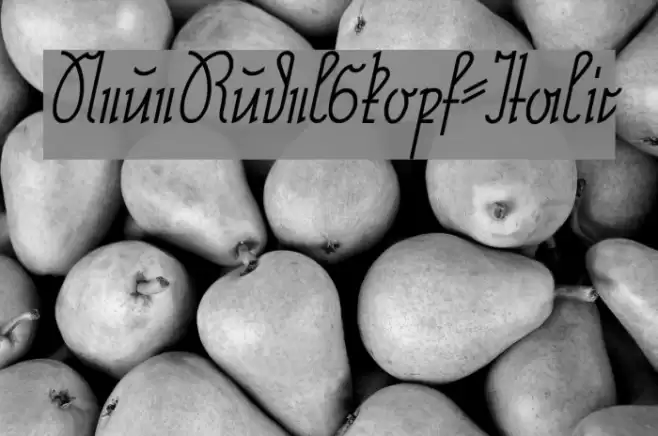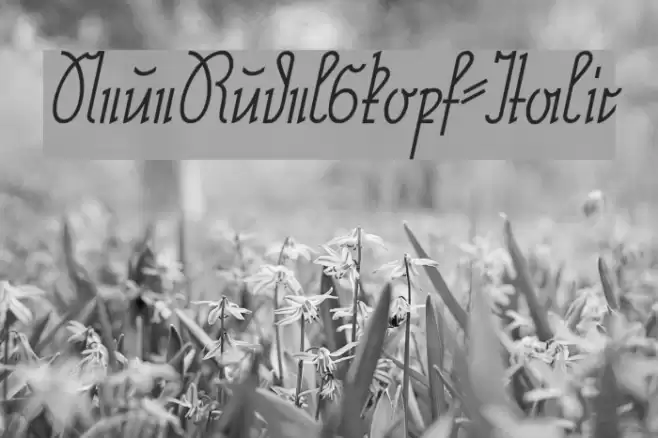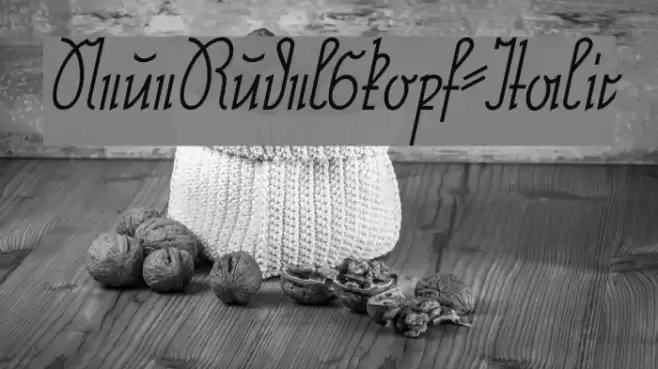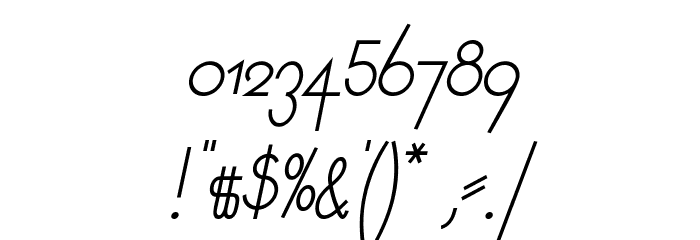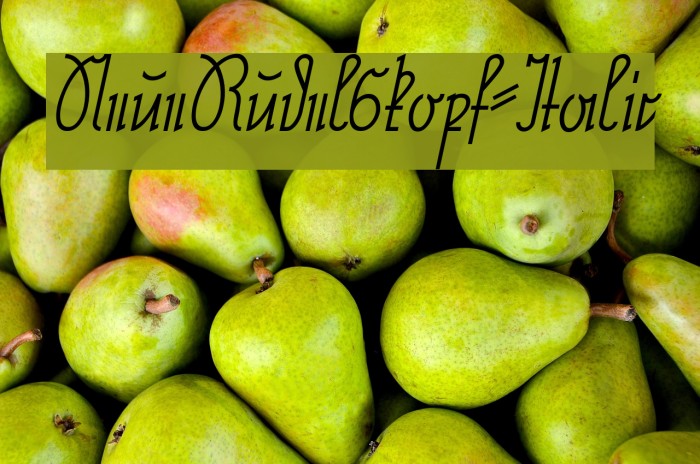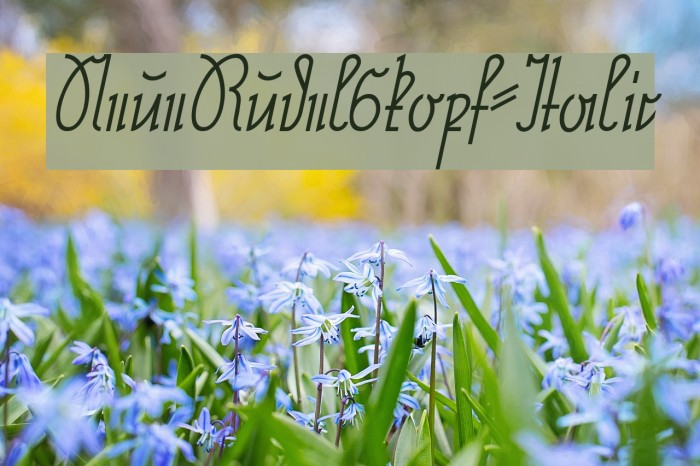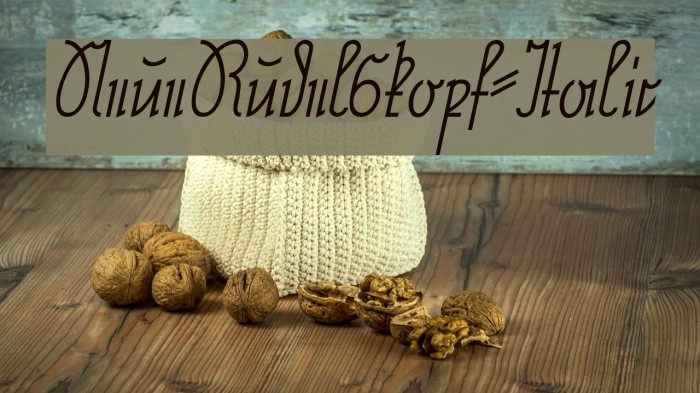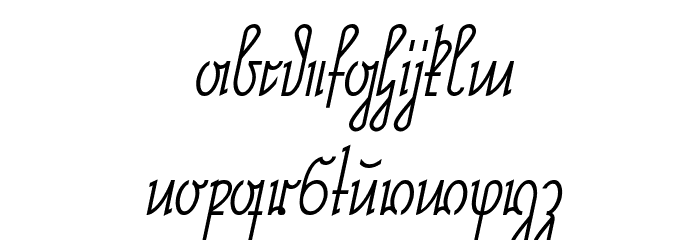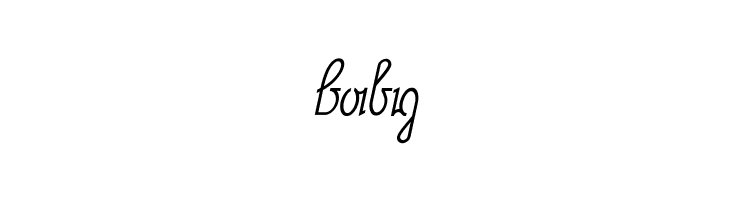
NeueRudelskopf-Italic Font
NeueRudelskopf-Italic Description
This font exhibits a distinct and elegant cursive style, characterized by its flowing and interconnected letterforms. The uppercase letters are tall and slender, with a slight slant that adds a dynamic and sophisticated touch. The lowercase letters maintain a consistent style, with smooth curves and a graceful appearance. The numerals are uniquely styled, complementing the overall aesthetic with their elongated and slightly whimsical design. Special characters are seamlessly integrated, maintaining the font's cohesive look. The font's artistic flair makes it suitable for creative and expressive projects.
An elegant cursive font with flowing, interconnected letterforms and a sophisticated slant.
- Proposed Projects: Ideal for wedding invitations, greeting cards, branding, and artistic projects that require a touch of elegance and creativity.
- Category: Script
- Use Case: Logos, Invitations, Artistic projects